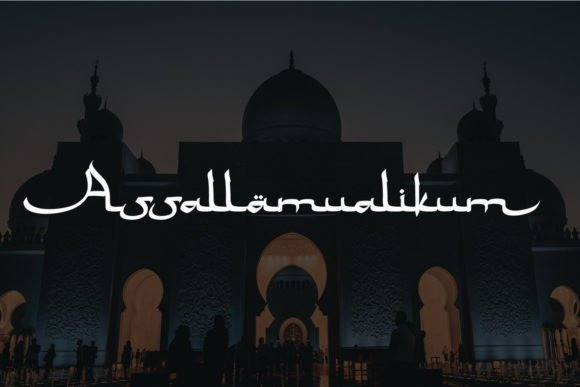
Bulan Ramadhan Arabic Font – This is font made to mimic the Arabic Letters, this font very usable for designing all kind of graphics design related to Islamic Contents.
Specially for typography for Titles, Posters, Flyers, T-shirt or even a Book Cover.